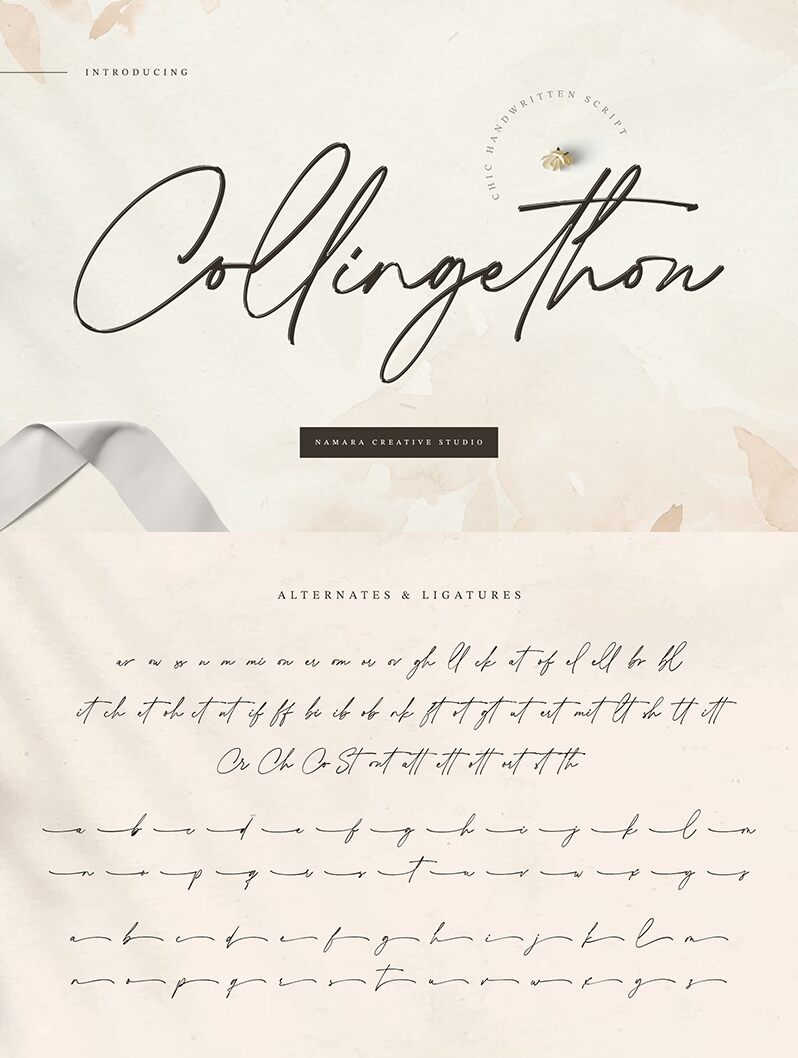
Collingethon
Collingethon, crafted by Namara Creative, is an exquisite font that combines the elegance of calligraphy with the personal touch of a signature. Its extra-light weight adds a delicate touch to any project.
This chic handwritten script font is perfect for creating unique and stylish handwritten-style logos that capture attention and leave a lasting impression. It also lends itself beautifully to wedding stationery, enhancing invitations and place cards with its sophisticated charm. Photographers can use Collingethon to create captivating watermarks that elegantly showcase their work.
Let your creativity flow with Collingethon's graceful strokes and distinctive flair.